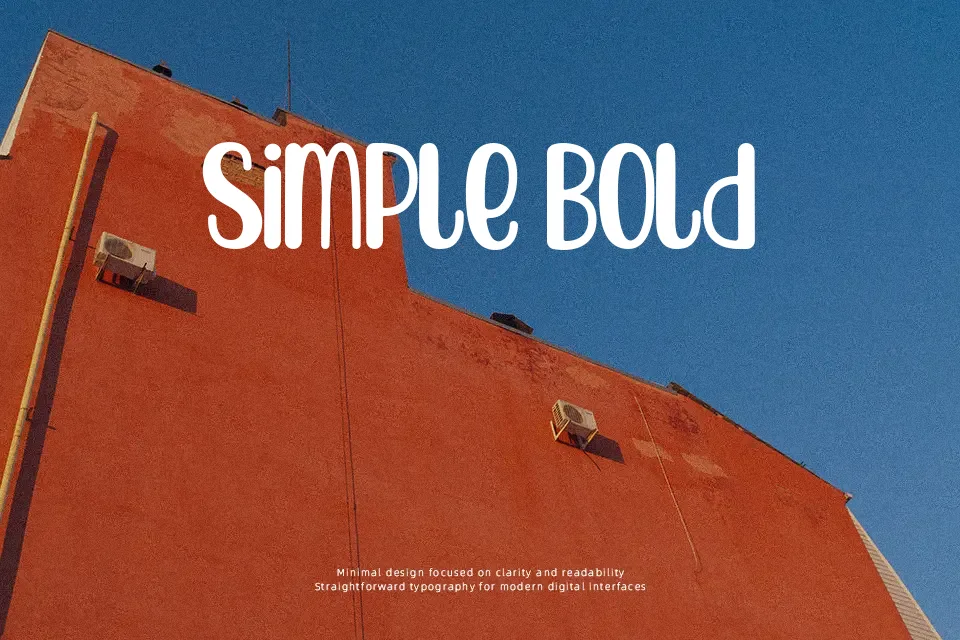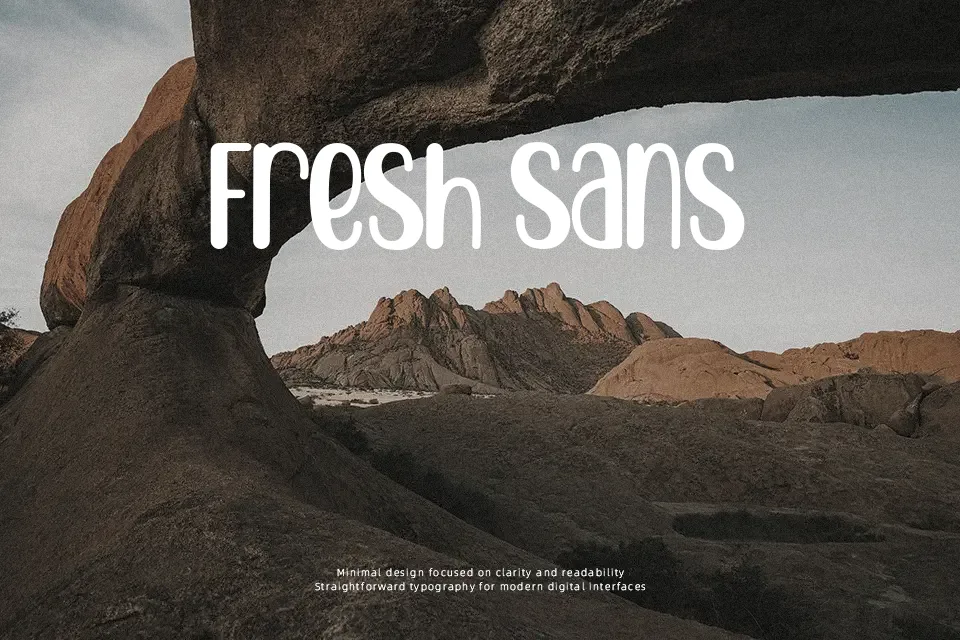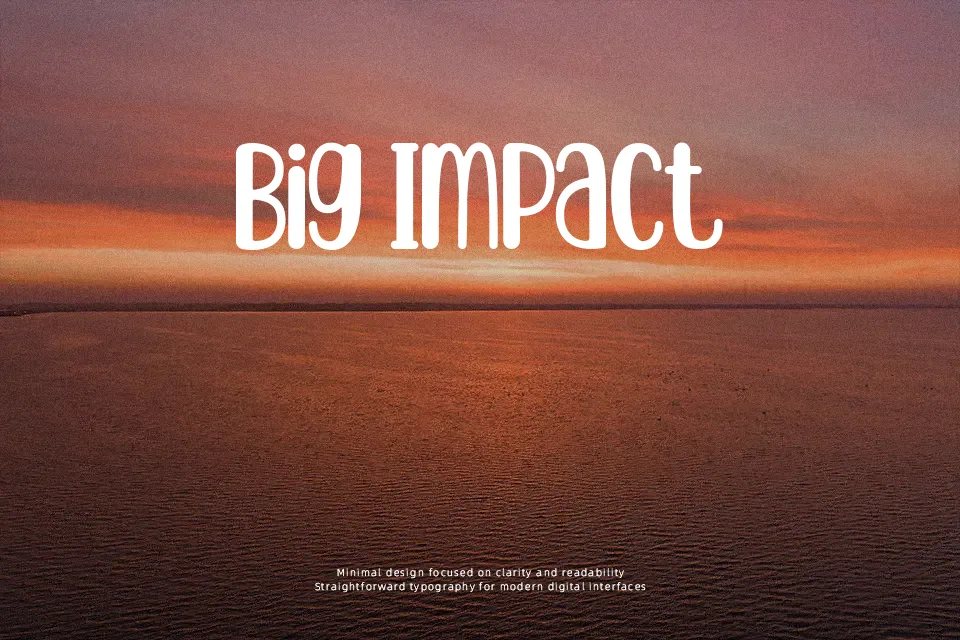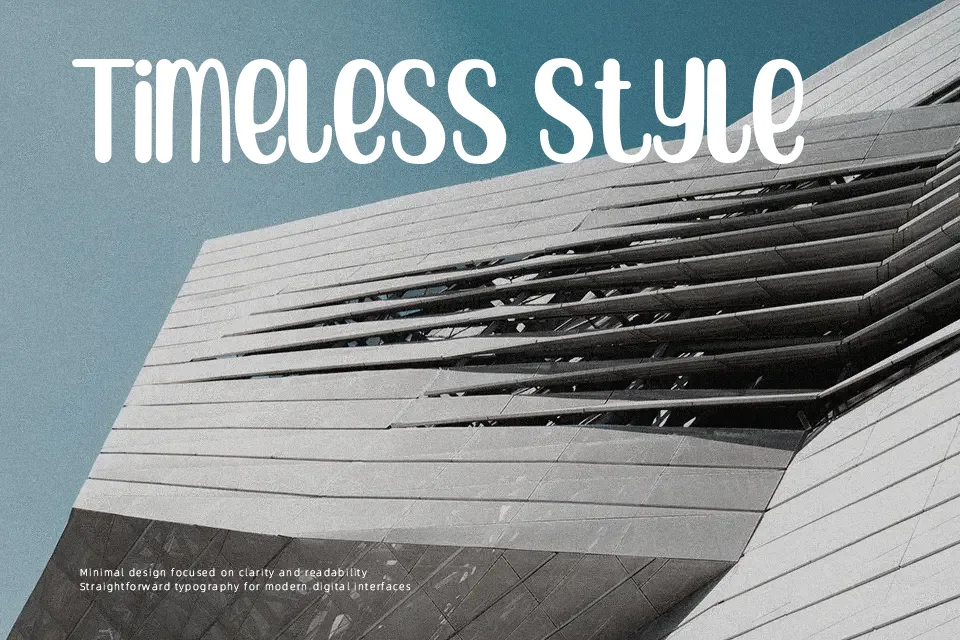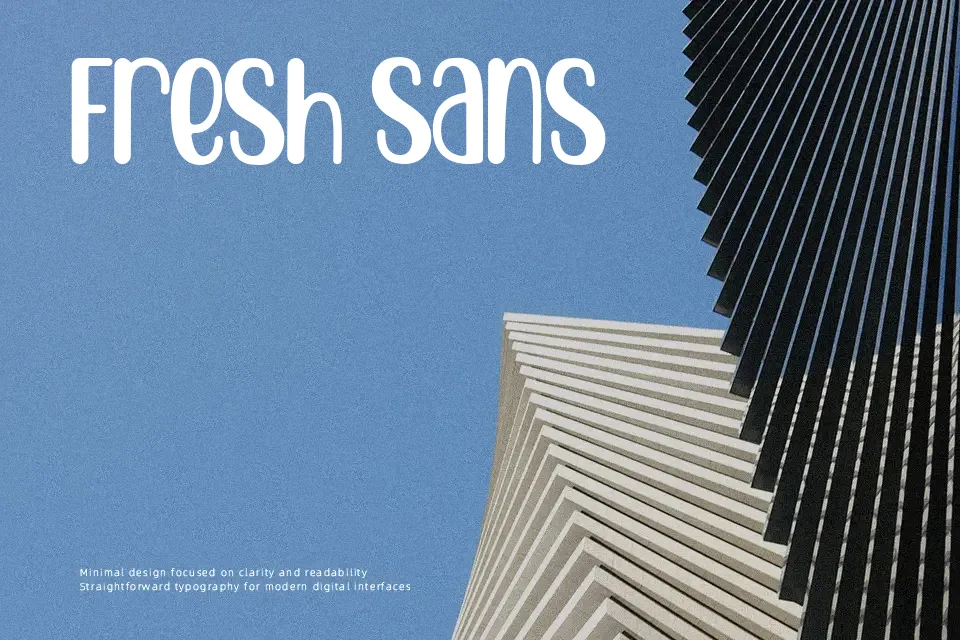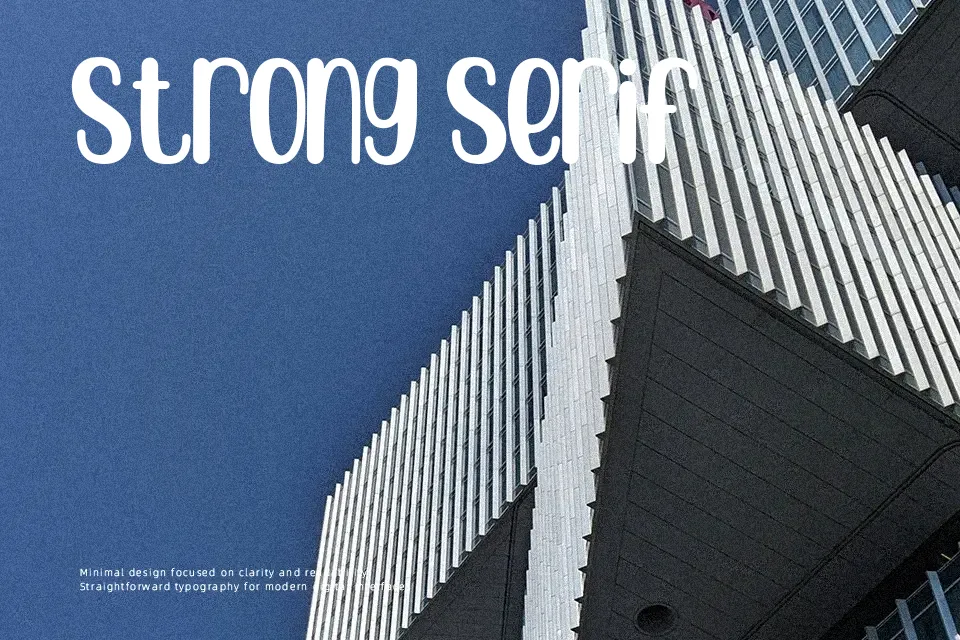
Sonya Cute Font
Sonya Cute Font features thick, uniform strokes with generously rounded terminals and bulbous letterforms that create a cheerful aesthetic. The design relies on low stroke contrast and balanced spacing, ensuring individual characters remain distinct across short phrases and promotional headers. Open counters and exaggerated curves give the uppercase and lowercase sets a consistent rhythm that suits toy packaging, birthday party invitations, and sticker artwork. While the heavy weight provides excellent visibility on large display surfaces, the dense letter structures become difficult to decipher at smaller sizes. The typeface works best when reserved for concise titles rather than body text.
Best For: toy packaging, children’s book titles, party invitations, sticker merchandise
Not Ideal For: body text paragraphs, mobile interface captions, technical documentation, corporate reports
Perfect for headline, invitation, and kids, with a bold and cartoon style.